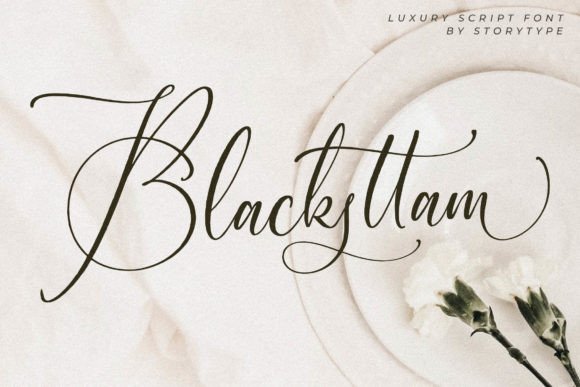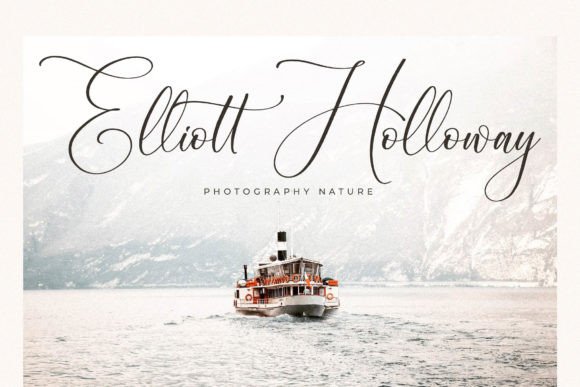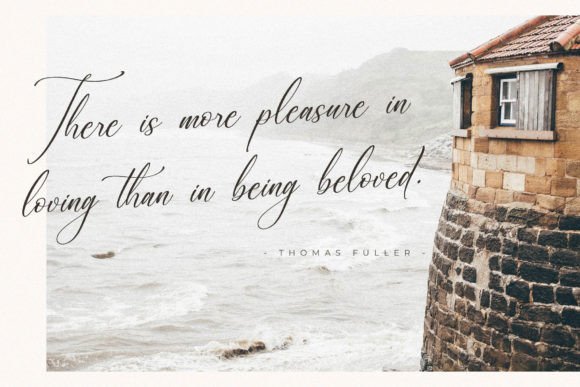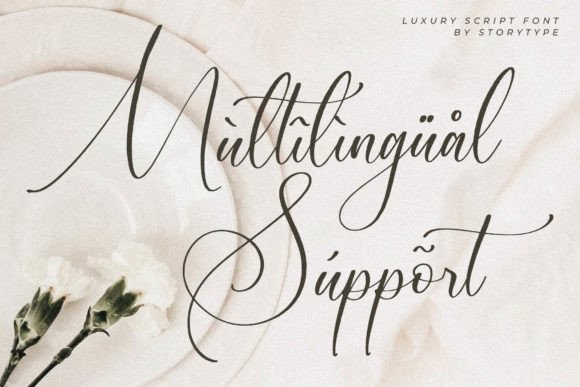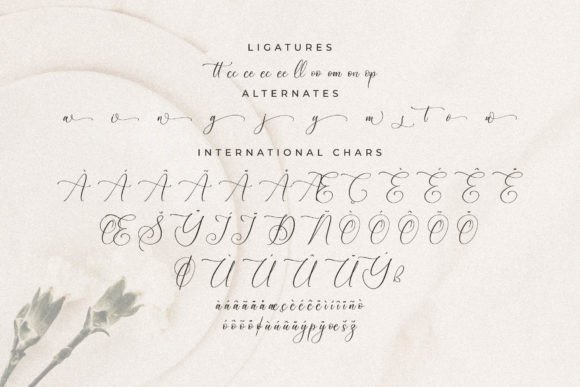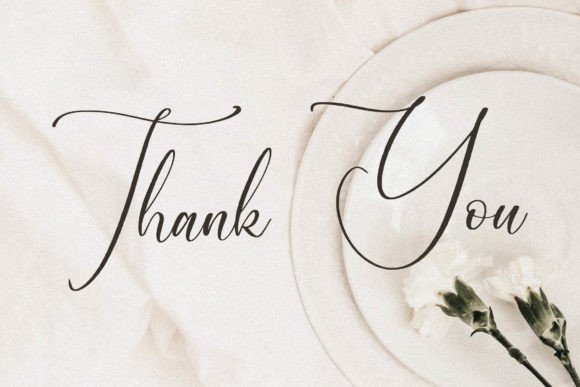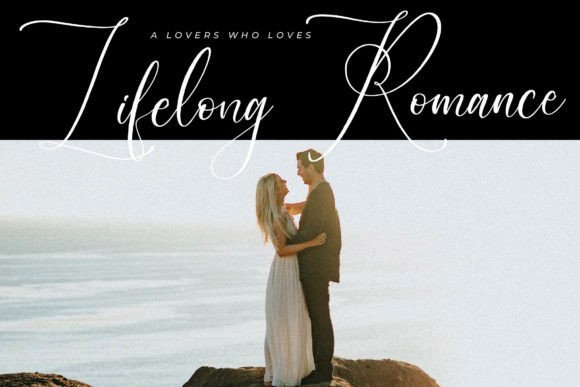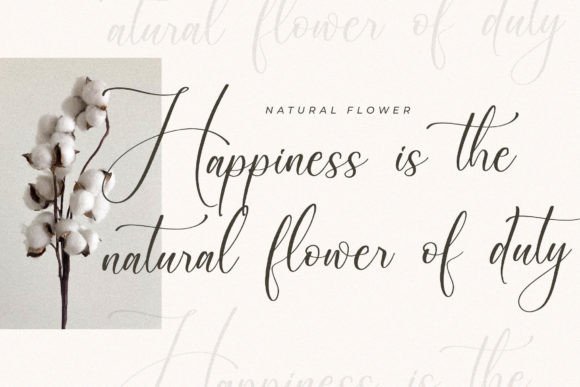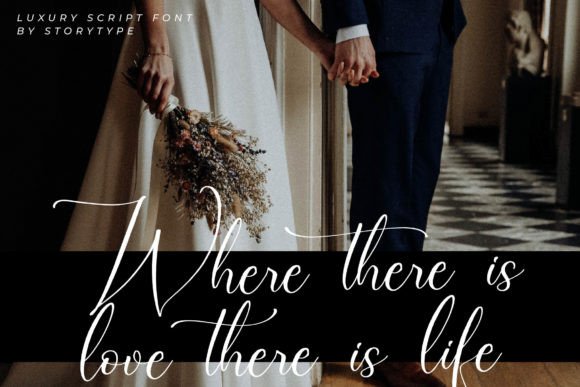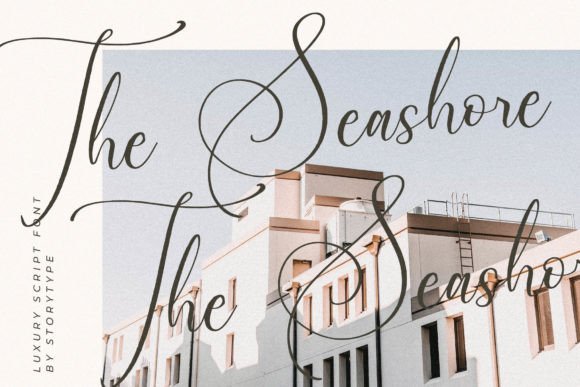
Blacksttam Font
About Blacksttam Font
Blacksttam is a luxurious script font with a unique style and modern look. This typeface is perfect for an elegant & luxury logo, book or movie title design, fashion brand, magazine, clothes, lettering, quotes, and so much more.